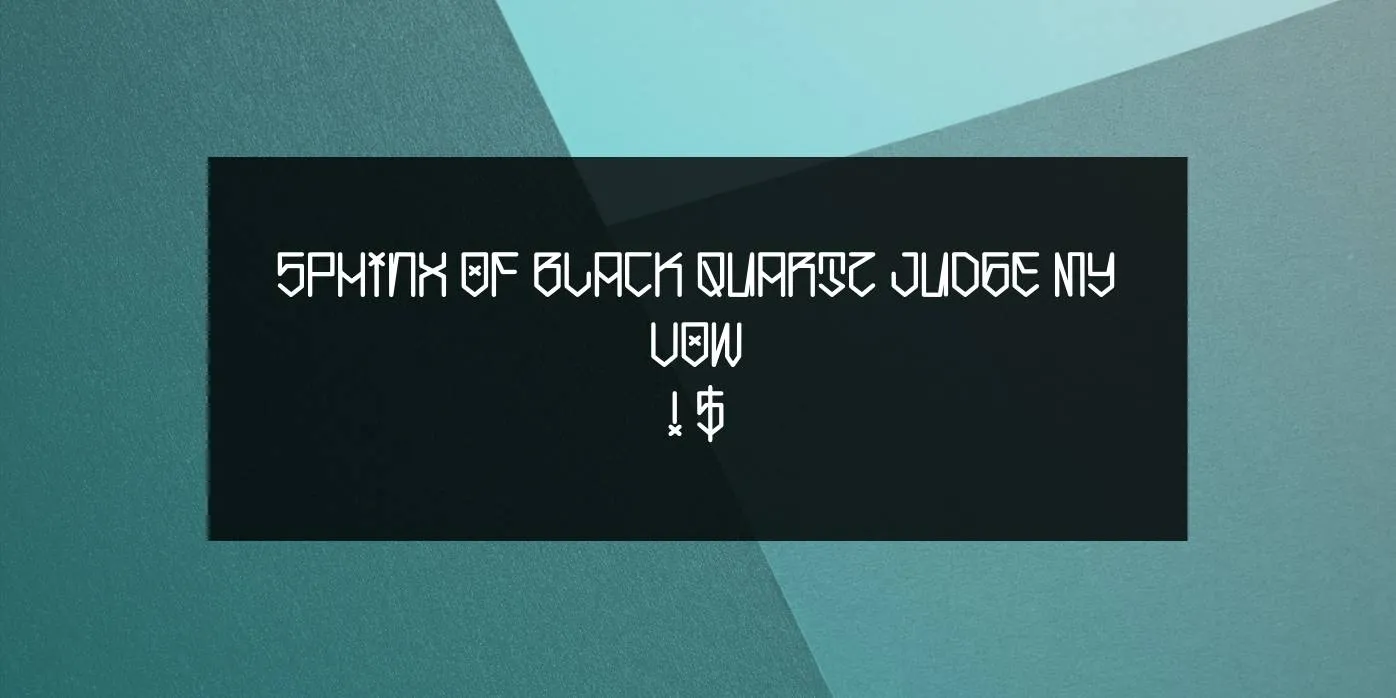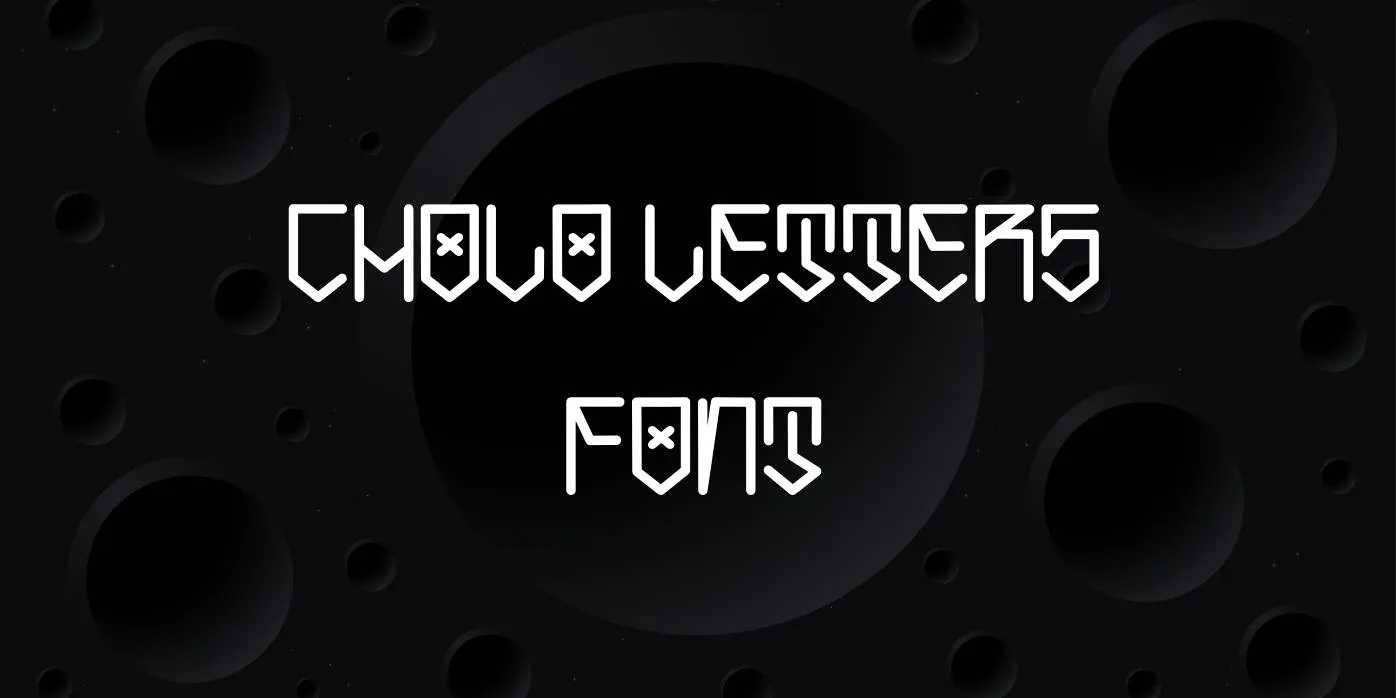
Cholo Letters Font
In this post, we discuss a very fascinating font known by the name Cholo Letters Font. This typeface belongs to the display font family. This texture was developed by Richie Mx. You can use this fancy font for various purposes.
You can use it for making unique and stylish headlines, logos, titles, etc. This remarkable font has available only in the uppercase alphabet letters. All of these characters are created with utmost perfection and attention to detail. Each letter has a thin line around it which makes them look sharp and elegant.
You can easily create any design you want with the help of this versatile font. If you are looking for a display font that is both stylish and sophisticated then Cholo Letters Font is the perfect choice for your plans and functions. You can also use pulp fiction font which is closest to this font family. You can also use the generator tool of this stunning family for all of your text designs.